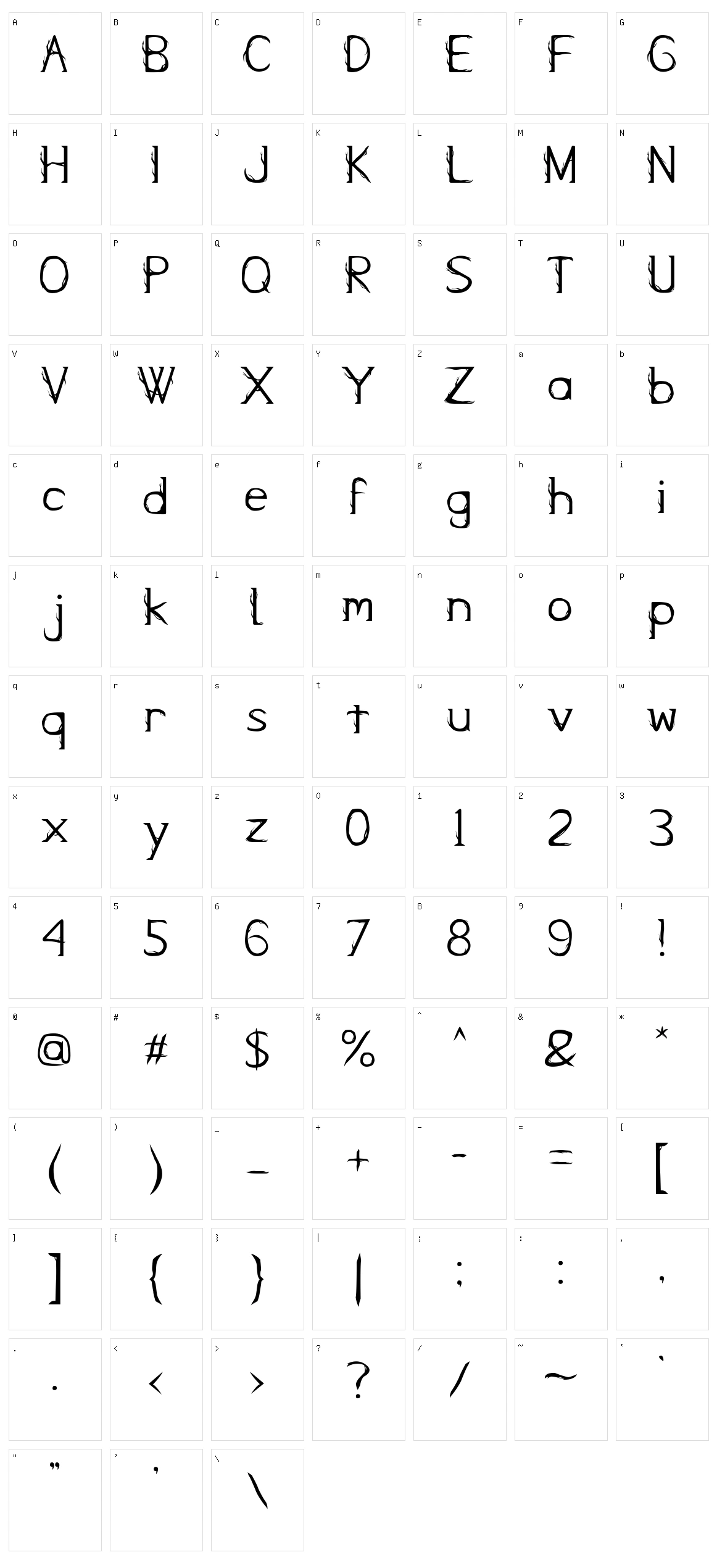
The free font Kampung Zombie is carefully designed by s3i, showcasing a thoughtful balance of creativity and usability and falls under the Horror font style. When you download the ZIP file, it contains only 29.25 KB of font files, making it lightweight and quick to download. Please review the license details below to understand permitted usage and distribution rights. If license information is not available, we recommend using this font for personal projects only or contacting the author directly for commercial usage permissions.